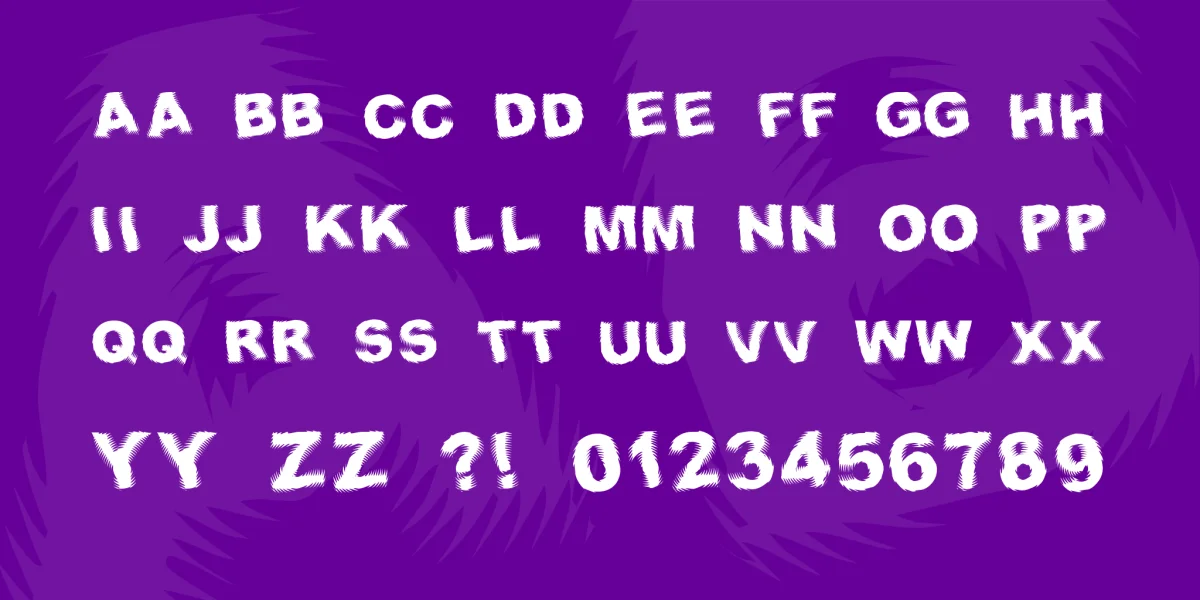
(Caps/Lower [same], Numbers, some Punctuation) looks sort-of like letters through a bad Fresnel lens. Looks best at large sizes! (In fact, since it is difficult to see the effect at all at small sizes on the computer screen, there's the top of a large F in grey at left as well.)